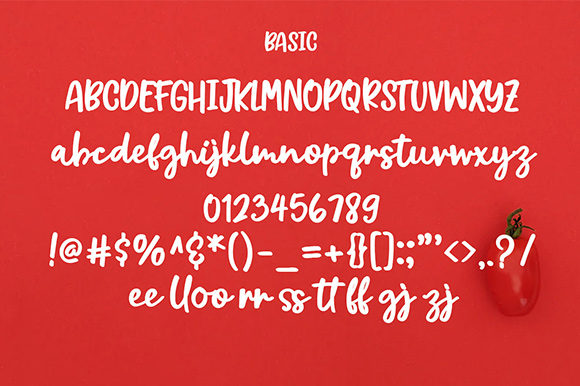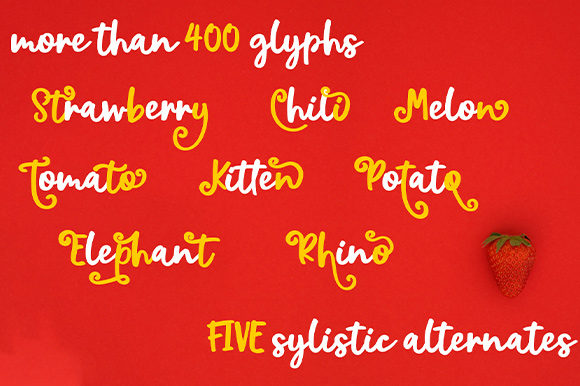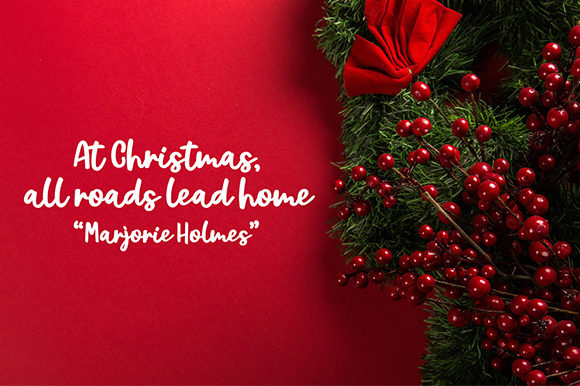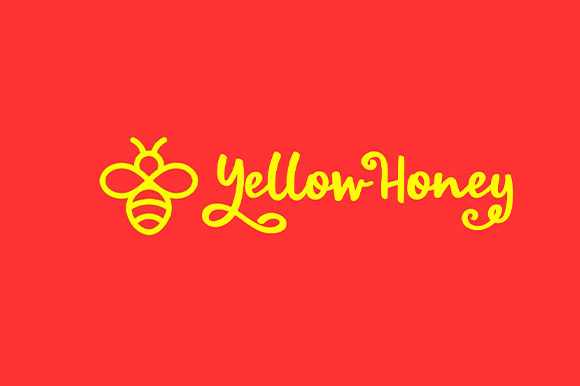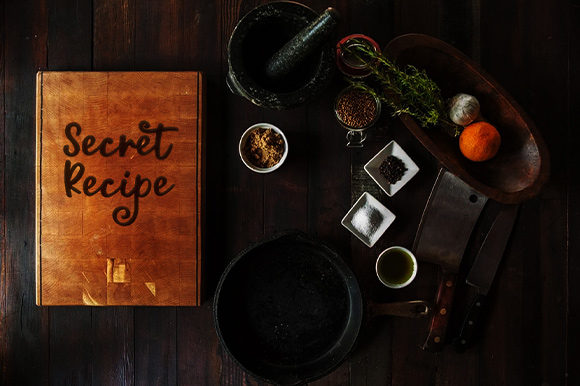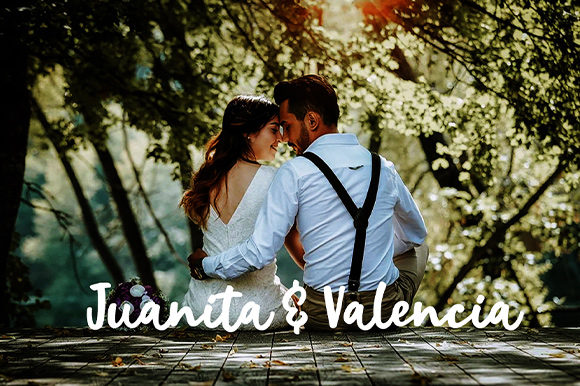
Do you ever find yourself staring at a blank page or screen, eager to bring your creative idea to life, but struggling to find the right font to make it pop? We’ve all been there. But what if you could add a dash of whimsy and personality to your designs with a font that’s as playful as it is professional?
Enter the Baby Snail Font, a delightful handwritten font that’s perfect for adding a touch of charm to your Instagram posts, DIY projects, or calligraphy scripts. With its amazing ligatures and swashes, this font is a designer’s dream come true. Whether you’re a seasoned pro or just starting out, the Baby Snail Font is sure to inspire your creativity and help you create truly unique and eye-catching designs.
- Font Family: Baby Snail
- Unique Characteristics: Hand-drawn, playful, and whimsical design; perfect for children’s books, nursery decor, and other projects requiring a cute and endearing font style
Baby Snail Font Review
At first glance, Baby Snail Font is an adorable and quirky font that’s sure to catch the eye of those looking for something playful and unique. ✨ The rounded edges and smooth curves make it perfect for designing for kids or creating a whimsical atmosphere.
Here are some of its standout features:
- ✨ Unique and recognizable design: Baby Snail Font is certainly one-of-a-kind, making it an excellent choice for designers who want to stand out from the crowd.
- ✨ Versatility: This font works well for a variety of applications, including logos, social media graphics, and children’s books.
- ⚠️ Limited character set: Baby Snail Font may not include all the characters you need, which could be a problem for more complex designs.
- ⚠️ Readability: The font’s playful design can sometimes make it difficult to read, especially at smaller sizes.
Overall, Baby Snail Font is a great choice for designers who want to add a touch of whimsy to their projects. While it may not be perfect for every situation, its unique design and versatility make it a valuable addition to any font collection.
Use the Baby Snail Font for creative projects, such as invitations, posters, and social media graphics. It’s also great for adding a playful touch to headings and titles. Experiment with different font sizes and colors to get the most out of this font.
Wedding invitations, birthday party invitations, social media graphics, blog titles, and headings for children’s products or services.